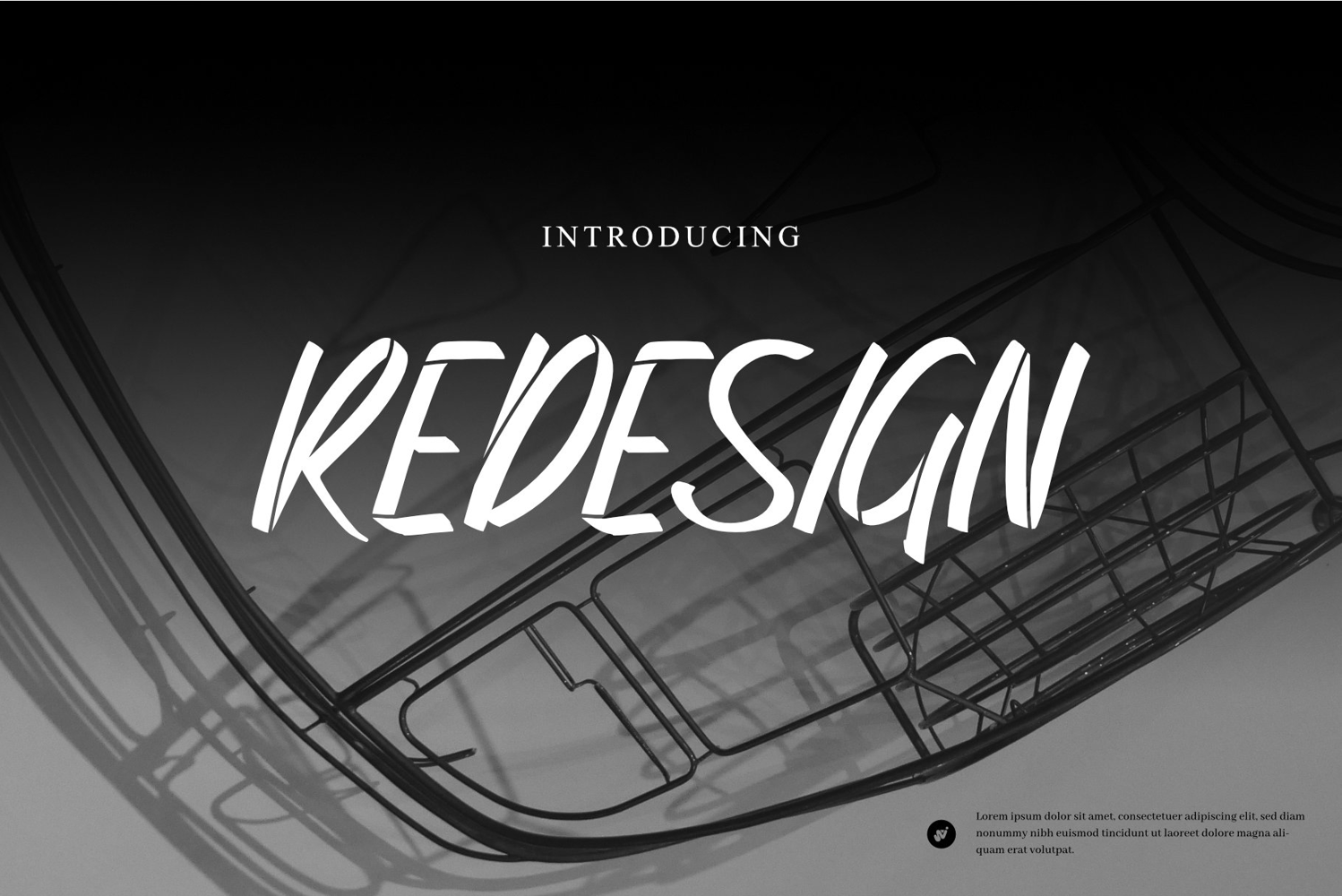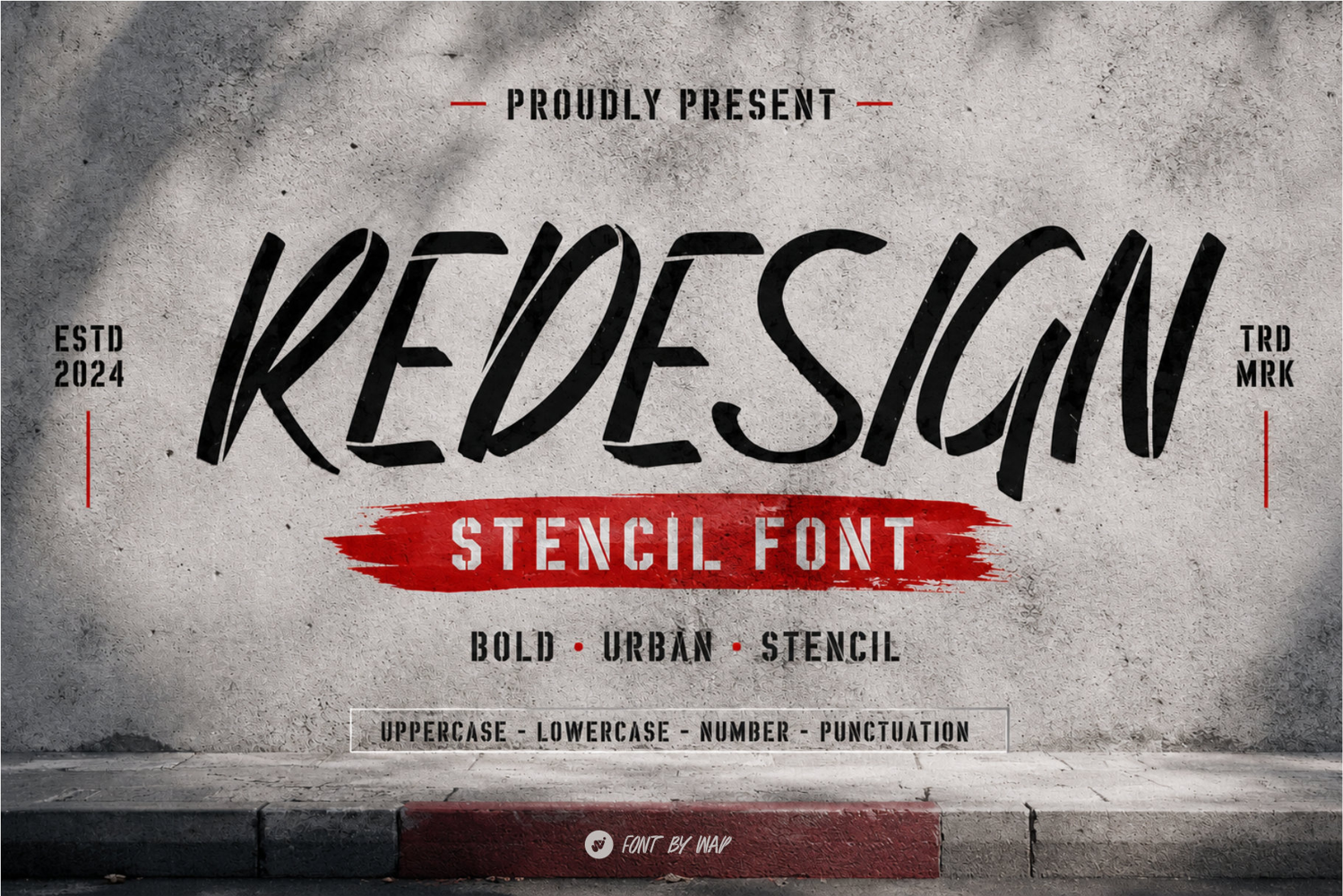
REDESIGN STENCIL
REDESIGN
Brush Stencil Font is a rough brushstroke style font combined with a firm stencil cut, creating a strong, bold, and expressive letter character. This font is designed for those of you who want to display street, rebel, and modern visuals in one typographic touch.
Each letter has a natural texture like a hand scribble, giving a lively and authentic impression, while remaining neat and easy to read for professional design needs.